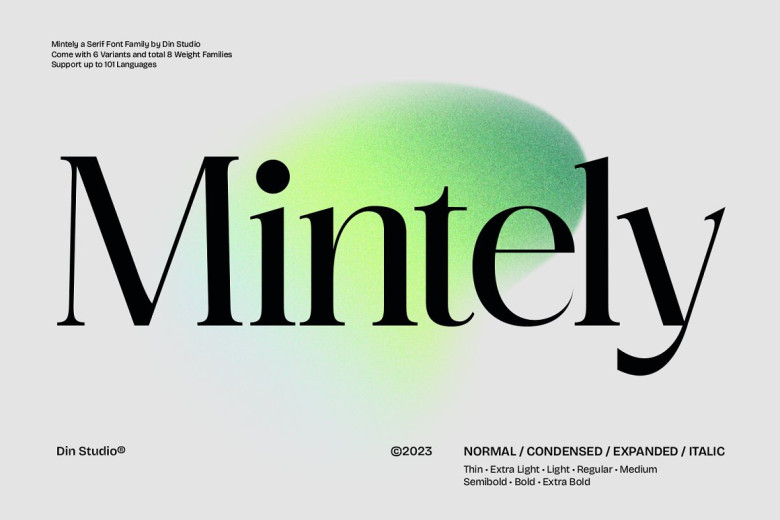
Mintely Font
Mintely is a sophisticated serif family designed to elevate typography to new levels of elegance and readability. Available in 6 styles and 8 weights, Mintely can be used in various projects due to its classic yet modern elements that creates an enduring appearance.
Mintely offers six styles to give you maximum control and create different moods, from minimal to ornate and decorative looks. Furthermore, its eight weight options create many opportunities for contrast and emphasis.
Mintely font family makes it easy to find the ideal weight for any design, from elegant and thin weights, to bolder and more impactful ones, making it easy to select what works for your needs. Legible font can be used across different text sizes; Mintely is well suited to headlines, logos on posters, flyers, invitations, branding materials, print media, editorial designs, headers etc.
Mintely Serif Font